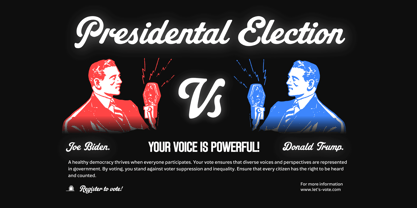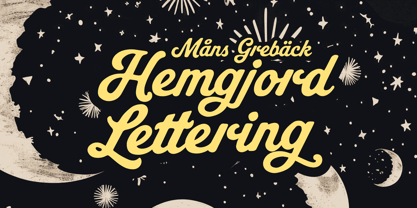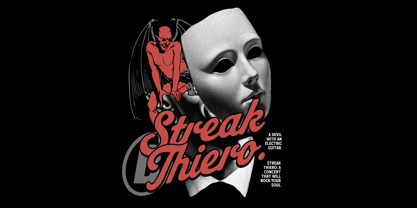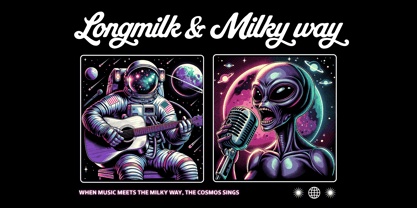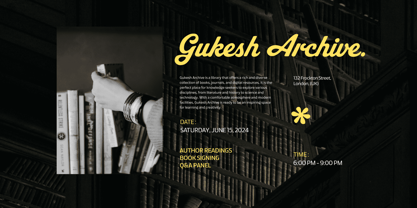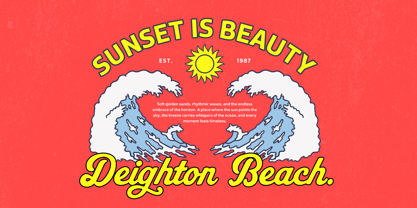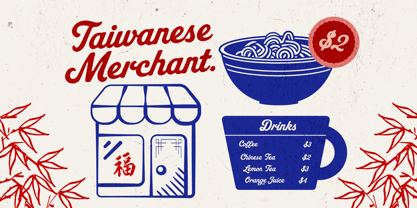
Hemgjord Lettering
La familia tipográfica Hemgjord Lettering fue diseñada por Måns Grebäck y publicada por Mans Greback. Hemgjord Lettering contiene 4 estilos y opciones de paquete familiar. Más información sobre esta familia
Hemgjord Lettering is a casual script, with rounded corners and a friendly, approachable appearance.
Its rounded forms and relaxed stance evoke a sense of movement, like a wave rolling in or the smooth glide of a skateboard. The letterforms are crafted with a sense of playful elegance, making it both inviting and visually engaging. The casual slant adds a sense of speed and while having the look of a traditional 1900's logo. Hemgjord's aesthetic would feel right at home on vintage surfboards, skate park typography, or the branding of a cool coffee shop.
The font is built with advanced OpenType functionality and guaranteed top-notch quality, containing stylistic and contextual alternates, ligatures and more automatic and manual features; all to give you full control and customizability.
It has extensive lingual support, covering all Latin-based languages, from North Europa to South Africa, from America to South-East Asia. It contains all characters and symbols you'll ever need, including all punctuation and numbers.
Mans Greback aimed to combine a traditional calligraphic structure with a modern, informal appearance.